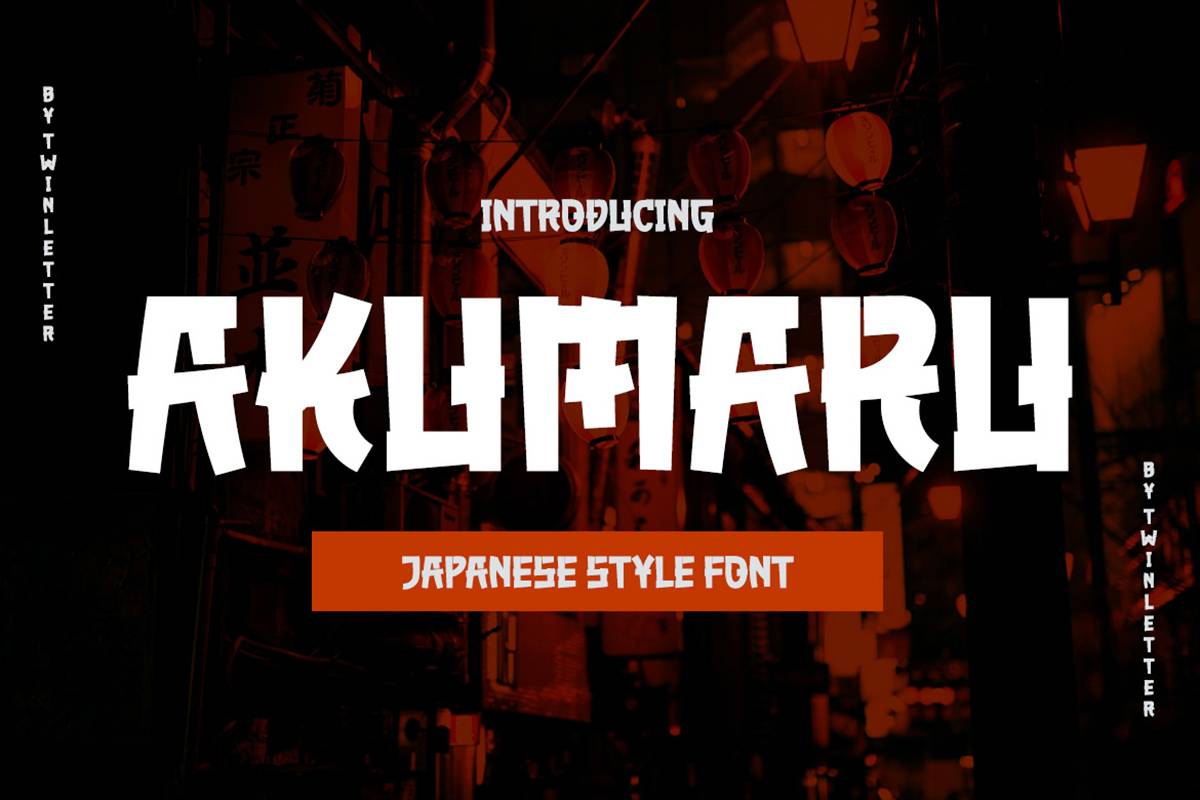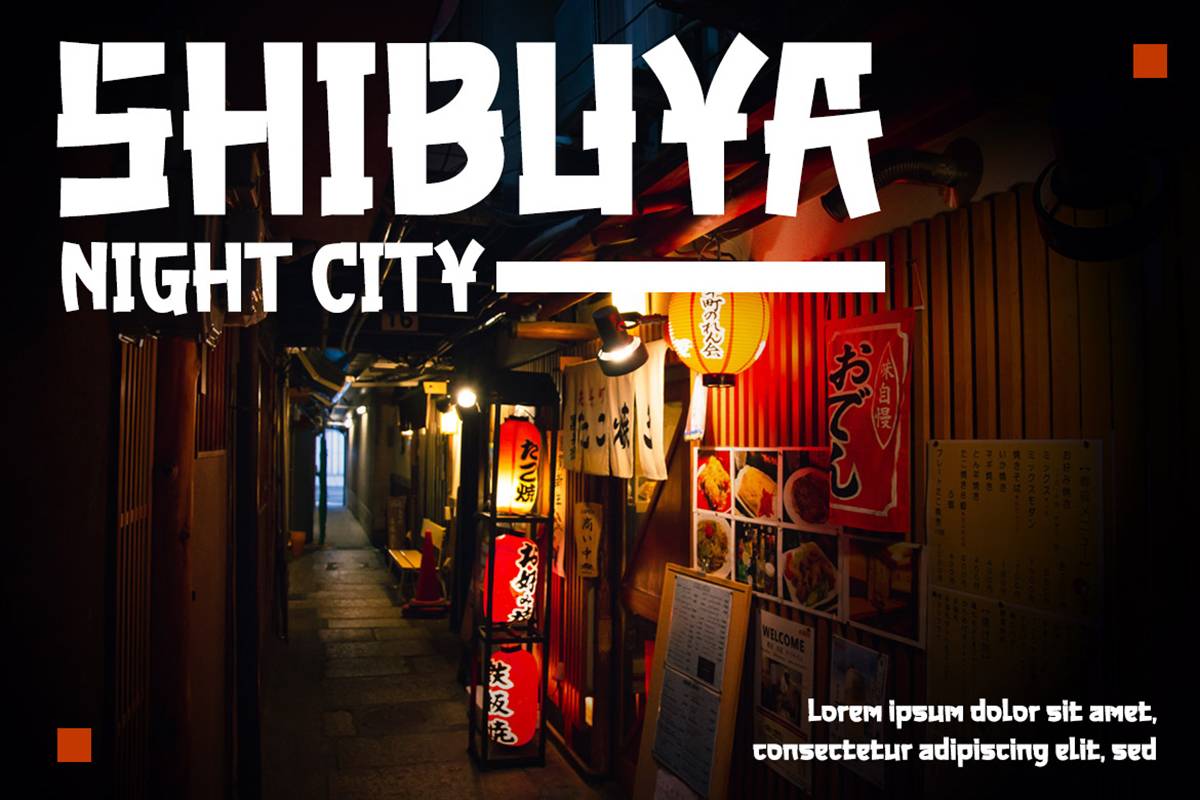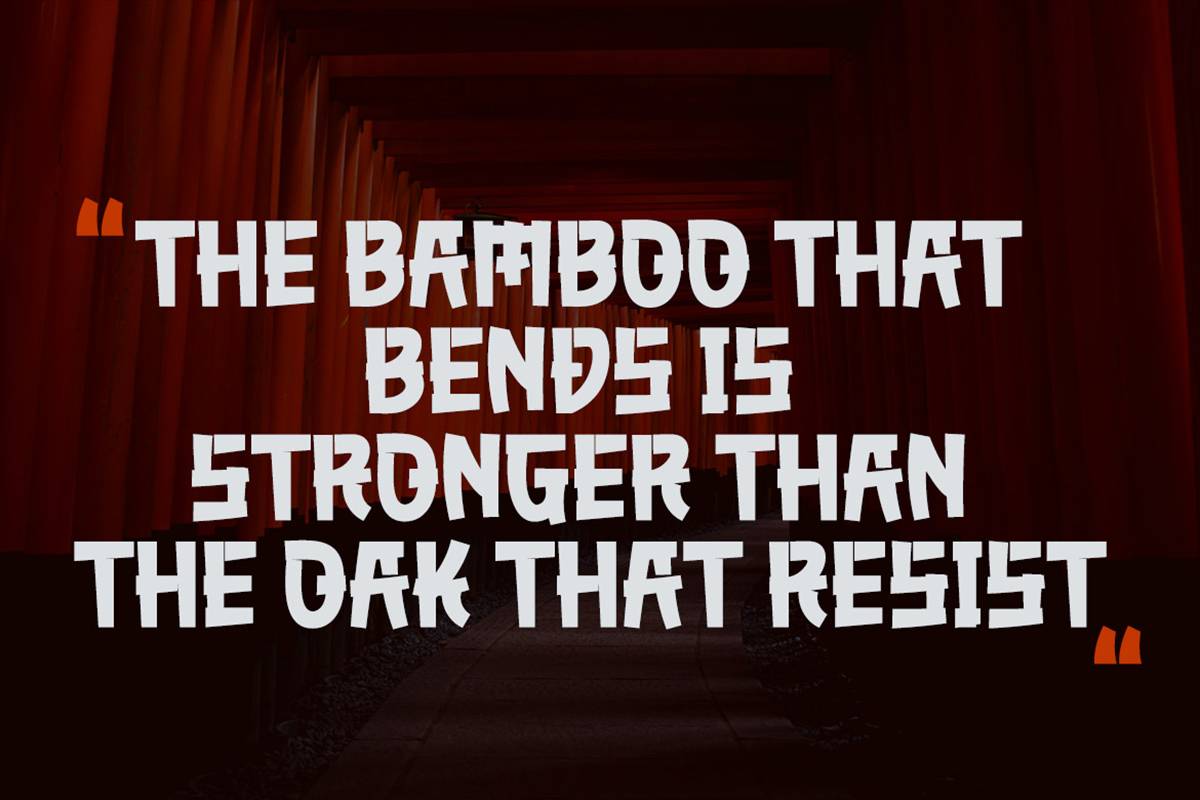
Akumaru is a bold, playful sans serif font with a condensed, slightly irregular structure that gives it a lively and energetic feel. Its blocky letterforms feature unique, quirky details and quirky shapes that work well for eye-catching headlines, logos, or creative projects seeking a fun and unconventional personality. This font shines in designs where a strong, spirited vibe is needed to grab attention and express originality.
Akumaru Font
About Akumaru Font